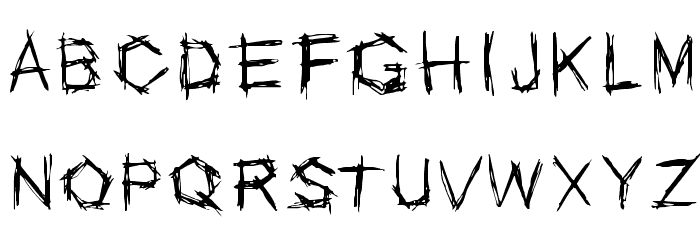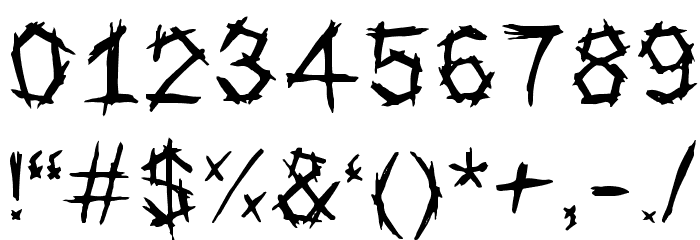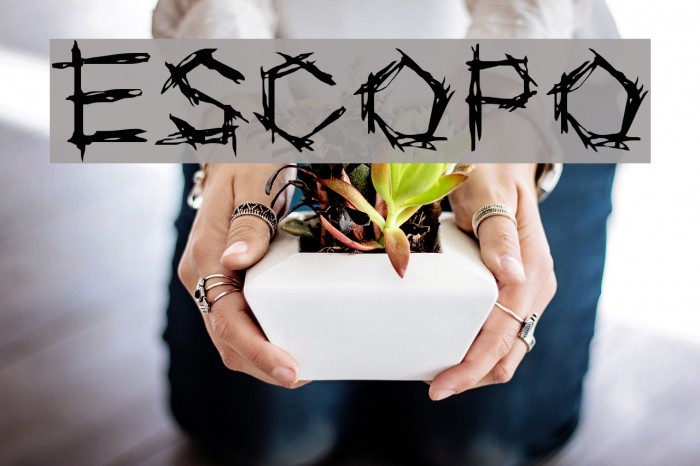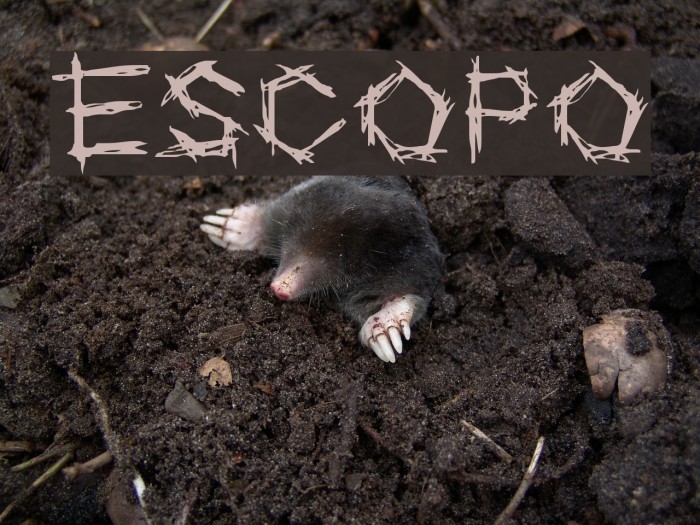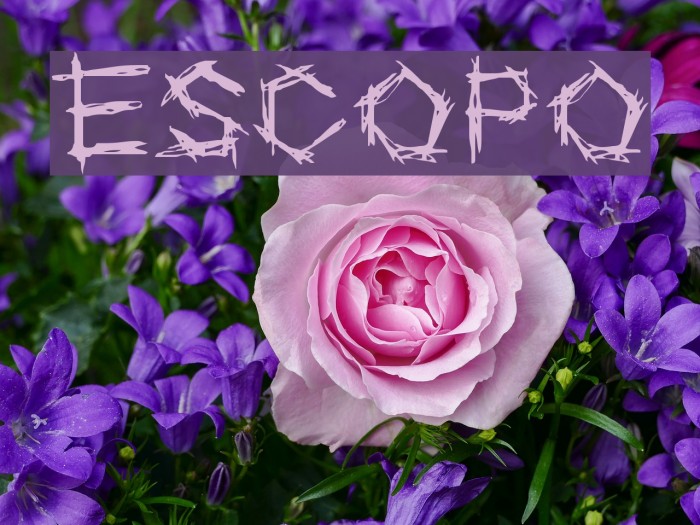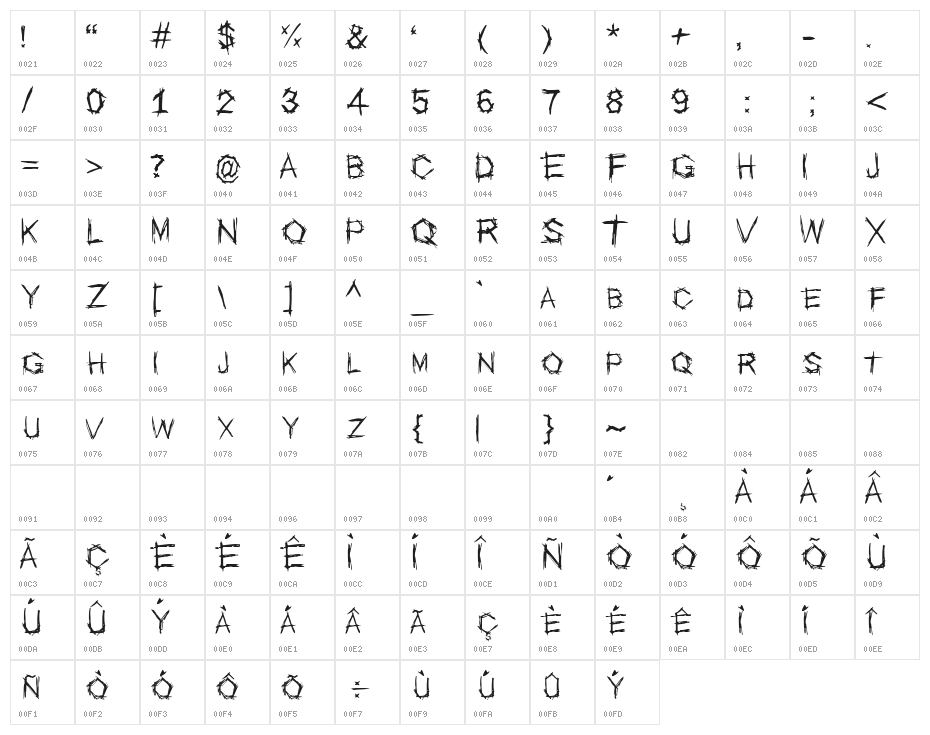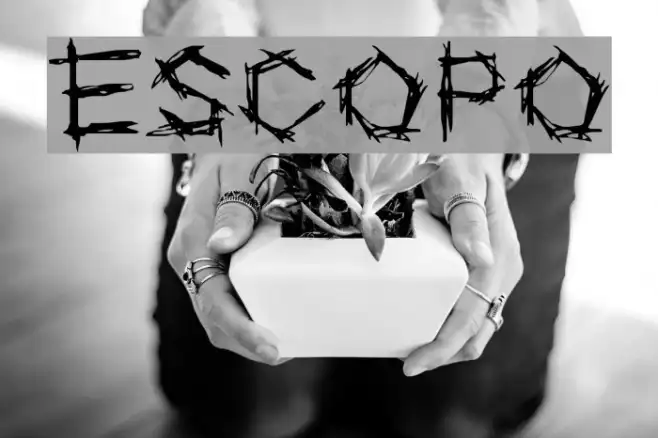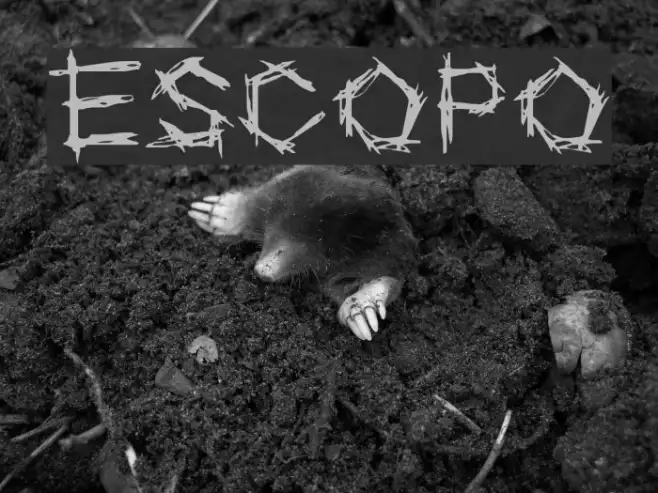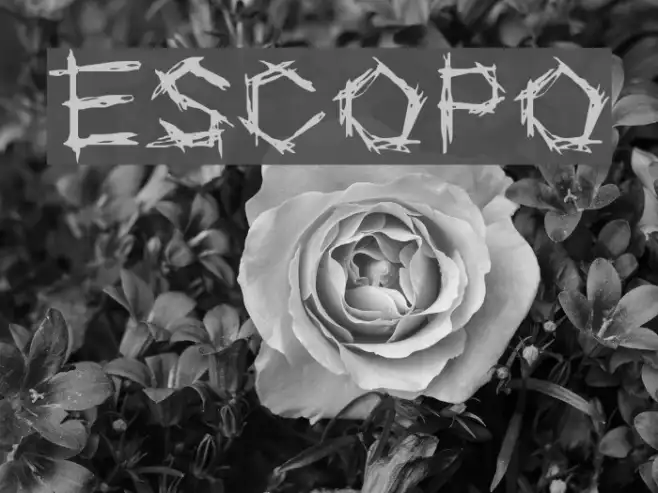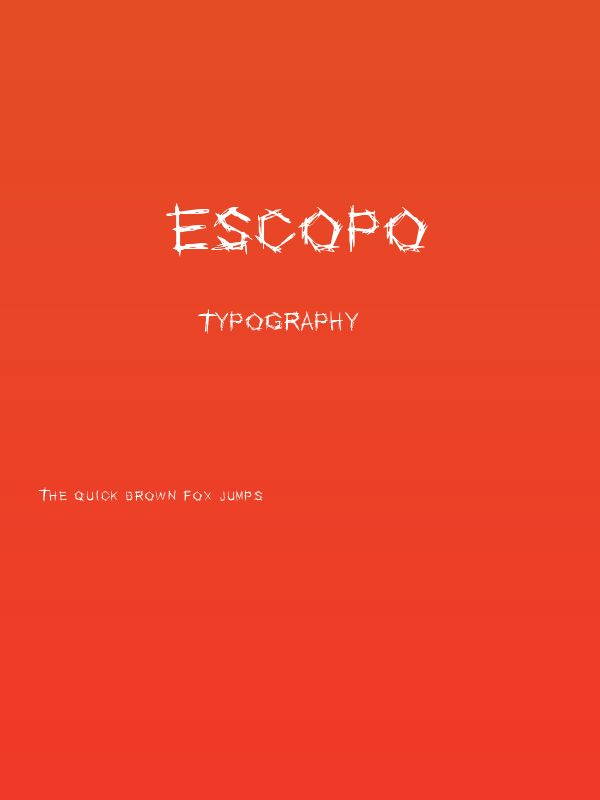
ESCOPO Font
This font features a rugged, edgy design with characters that appear to be constructed from sharp, thorn-like elements. The letters have an irregular, jagged appearance, giving them a chaotic and intense feel. The uppercase and lowercase letters maintain a consistent style, with each character exhibiting unique angles and points. Numbers and special characters follow the same thorny theme, ensuring a cohesive look across all glyphs. The font's distinctive style makes it ideal for projects that require a bold, eye-catching aesthetic.
A thorny, edgy font with jagged, chaotic characters.
- Proposed Projects: Ideal for horror-themed designs, edgy posters, album covers, or any project needing a striking, unconventional look.